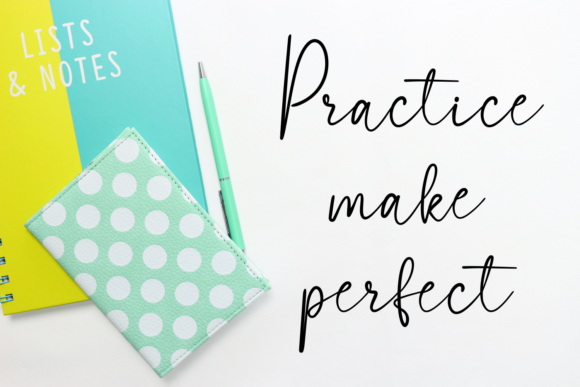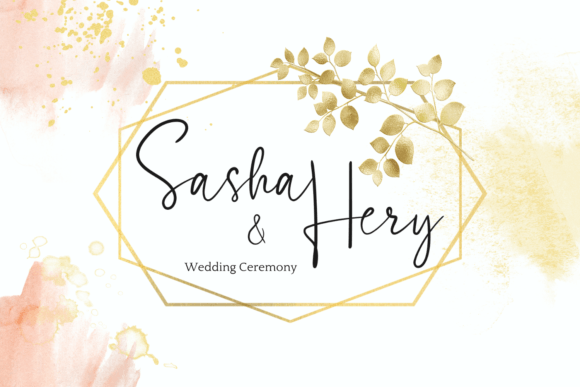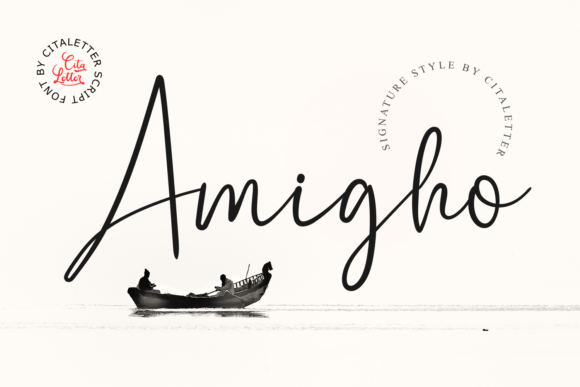
Discover the Charm of Amigho Font: Elevate Your Designs with a Whimsical Script Font
In the world of typography, fonts play a crucial role in conveying the tone and personality of a design. For designers and crafters looking to add a touch of whimsy and relaxation to their creations, the Amigho Font is an excellent choice. This lovely script font features a relaxed theme that can instantly elevate any project, making it a valuable asset to your font library.
What is Amigho Font?
Amigho Signature is a whimsical script font that boasts a unique and charming style. Its relaxed theme makes it perfect for designs that require a friendly and approachable tone. Whether you’re working on a branding project, a craft, or a digital creation, Amigho Font is designed to add a personal touch that resonates with your audience.
Key Features of Amigho Font
- Whimsical Script Style: Amigho Font features a beautiful, flowing script style that adds a touch of elegance and sophistication to any design.
- Relaxed Theme: The font’s relaxed theme makes it perfect for designs that require a friendly and approachable tone.
- Versatility: Amigho Font can be used on a wide range of projects, from branding and advertising to crafting and digital creations.
- Ease of Use: The font is easy to read and works well in both digital and print formats.
Benefits of Using Amigho Font
So, why should you choose Amigho Font for your next project? Here are just a few benefits of using this lovely script font:
- Adds Personality to Your Designs: Amigho Font’s unique style allows you to add a personal touch to your designs, setting them apart from the rest.
- Enhances Readability: The font’s clear and flowing script style makes it easy to read, even at smaller sizes.
- Perfect for Branding: Amigho Font’s relaxed theme and whimsical style make it an excellent choice for branding projects that require a friendly and approachable tone.
- Great for Crafting and DIY Projects: The font’s charming style is perfect for crafting and DIY projects, such as handmade cards, invitations, and signs.
How to Use Amigho Font in Your Designs
Using Amigho Font in your designs is easy. Here are a few tips to get you started:
- Pair it with Other Fonts: Amigho Font pairs well with other fonts, such as sans-serif fonts, to create a visually appealing contrast.
- Use it for Headings and Titles: The font’s whimsical style makes it perfect for headings and titles, adding a touch of personality to your designs.
- Experiment with Colors: Amigho Font works well with a range of colors, from bold and bright to soft and pastel.
In conclusion, Amigho Font is a versatile and charming script font that can elevate any design. Its whimsical style and relaxed theme make it perfect for a wide range of projects, from branding and advertising to crafting and digital creations. With its ease of use and range of benefits, Amigho Font is an excellent addition to any font library.